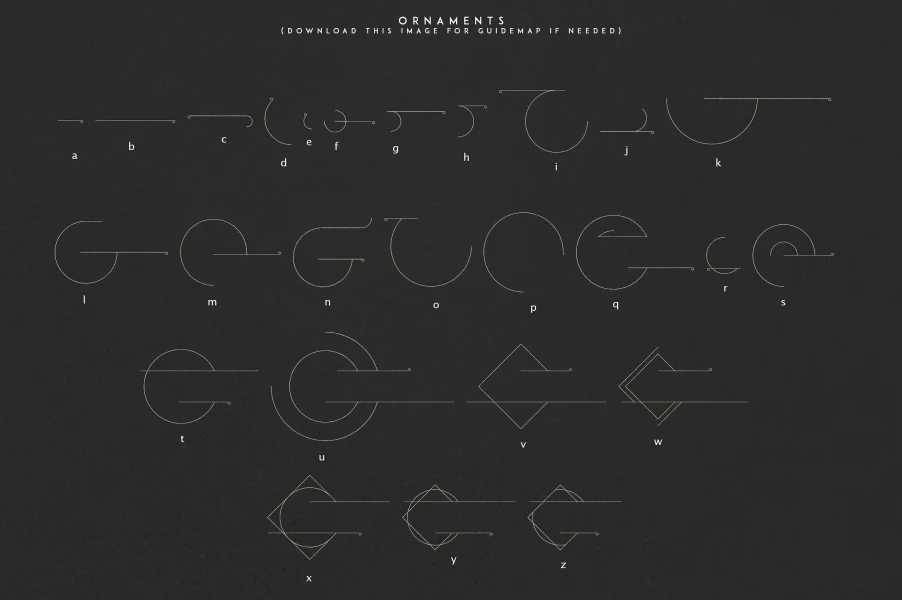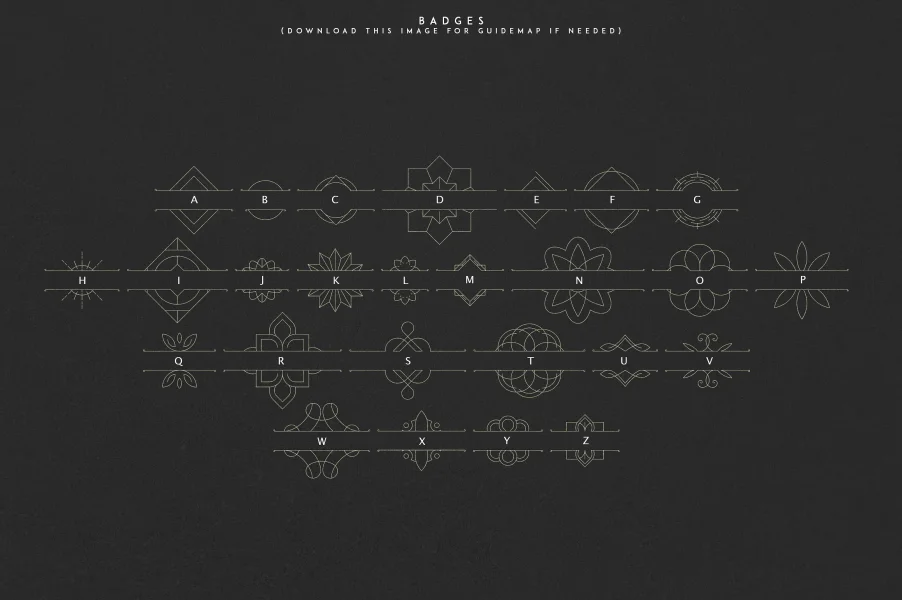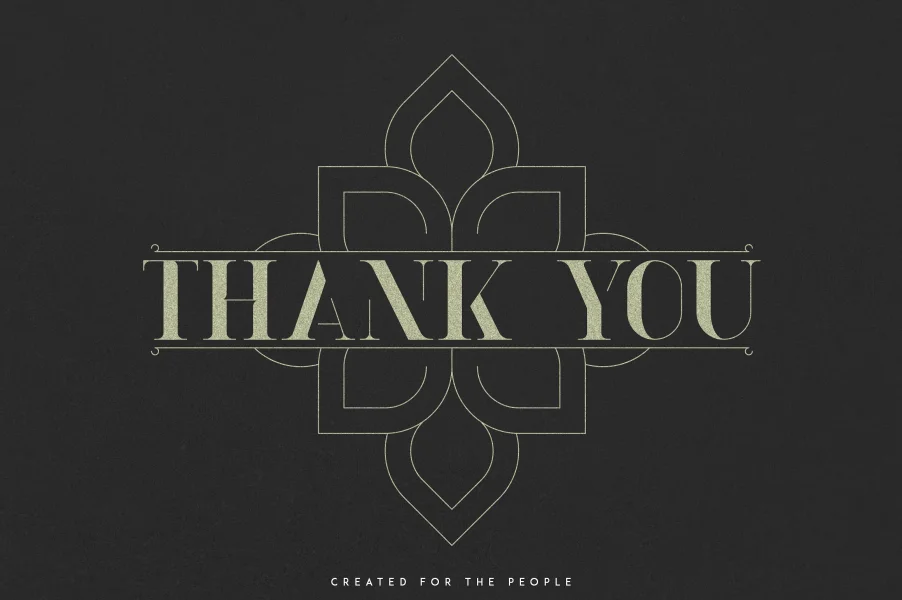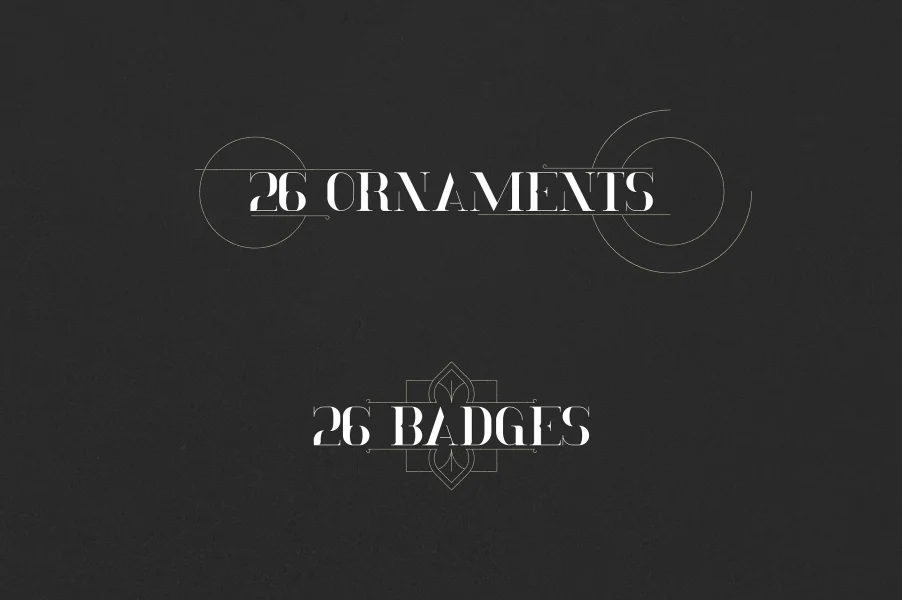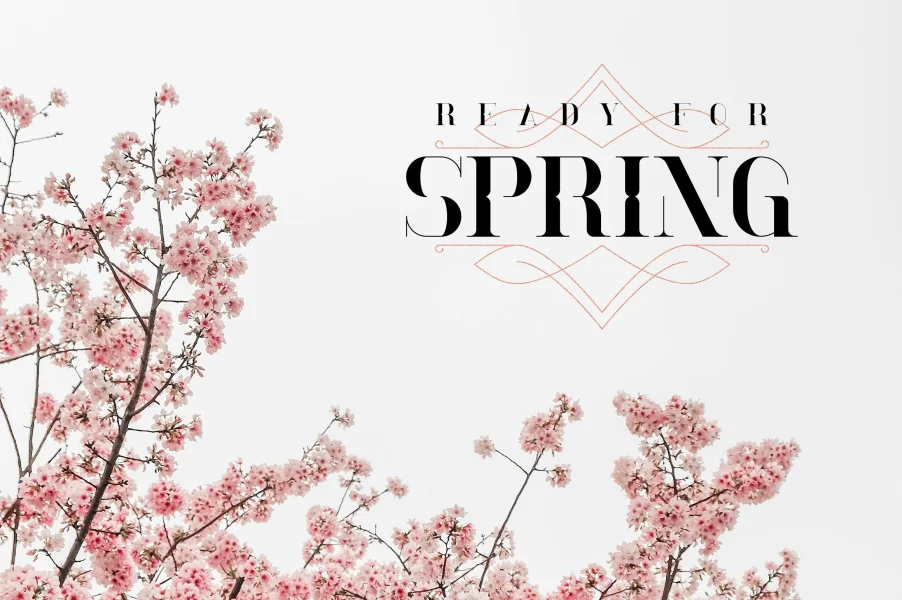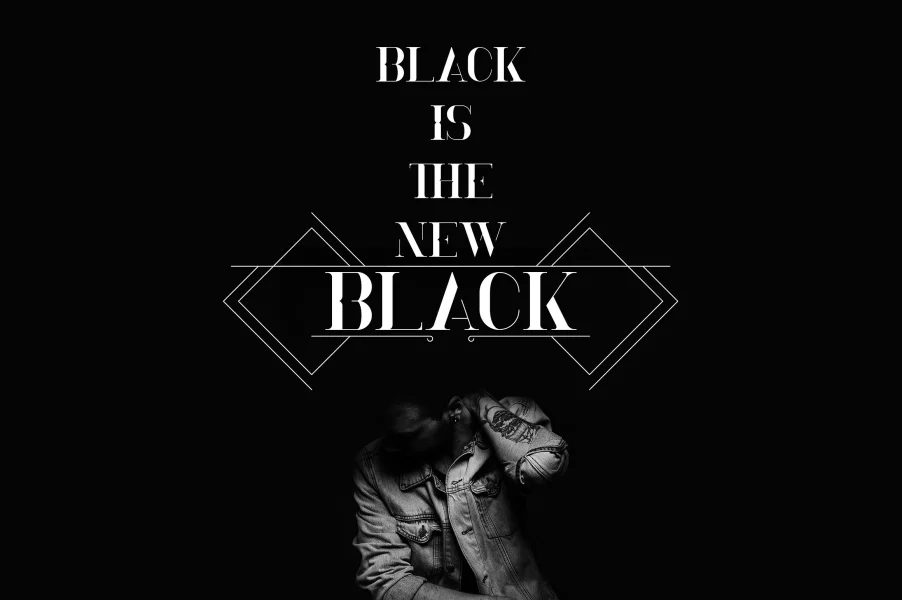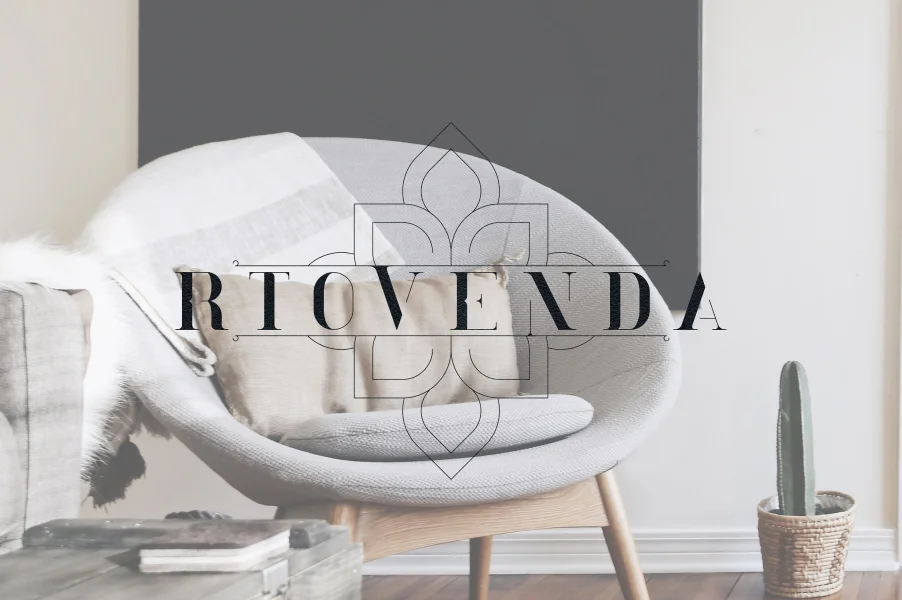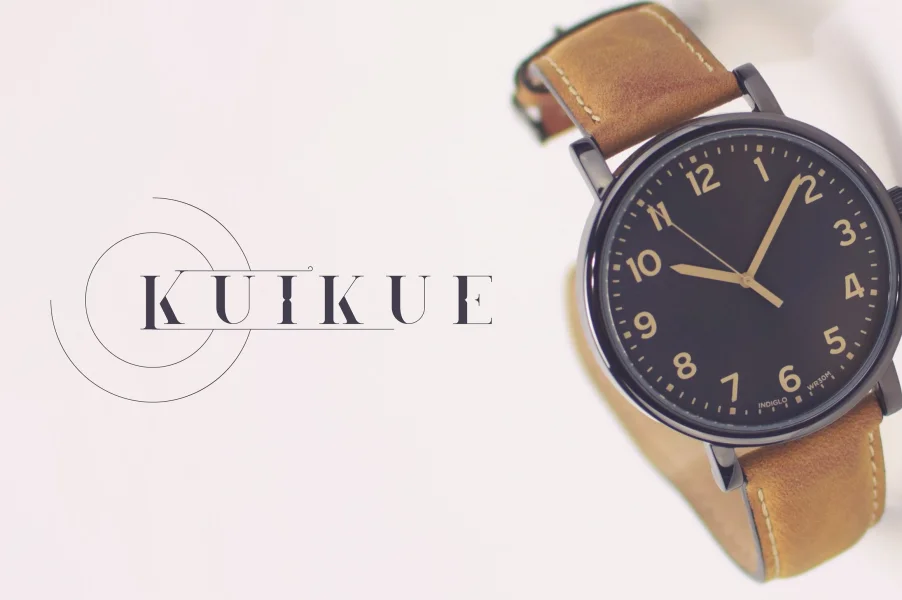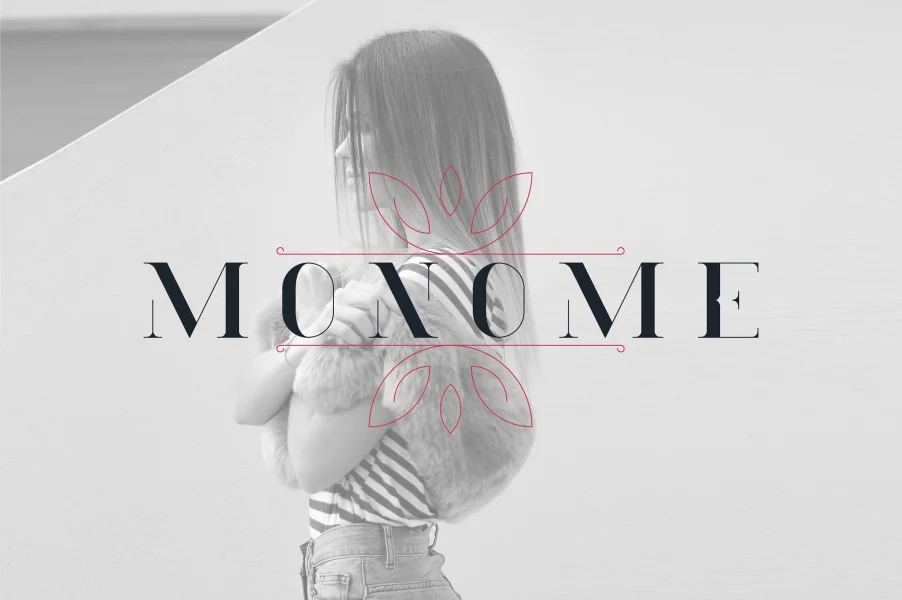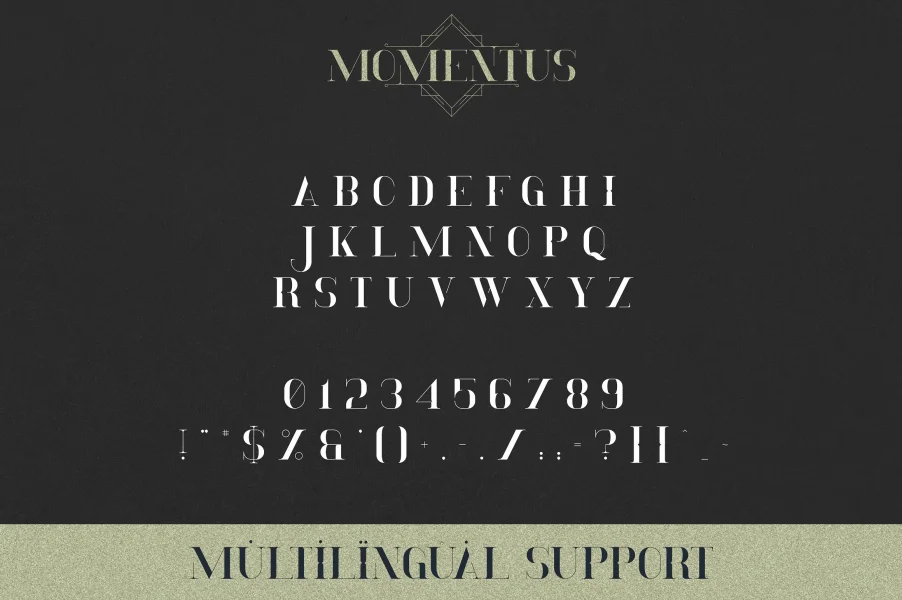
Momentus is perfect for branding projects, home-ware designs, product packaging, magazine headers - or simply as a stylish text overlay to any background image.